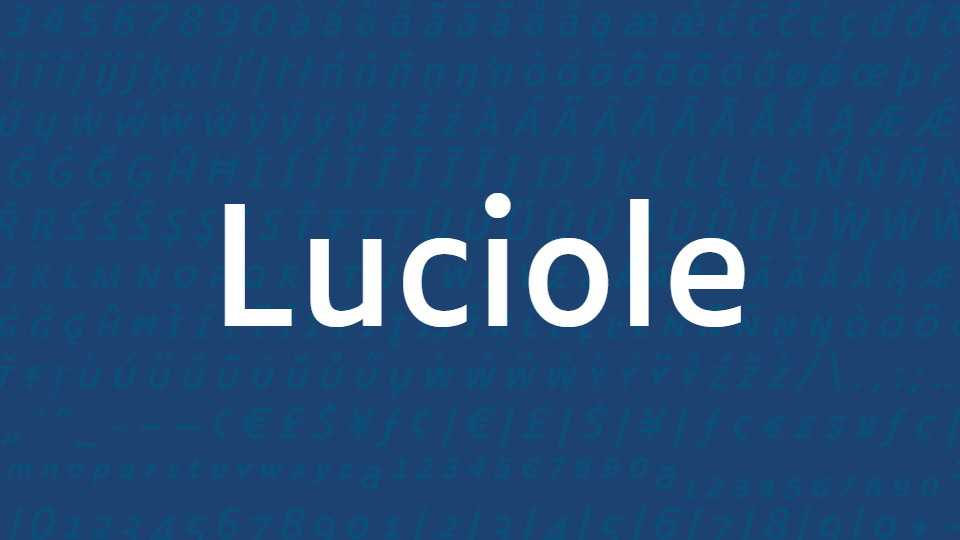
Download Luciole typeface, a sans serif font family in two weights with Italics, for visual impairment considering a dozen specific design criteria to provide the best possible reading experience.
Designer: Laurent Bourcellier